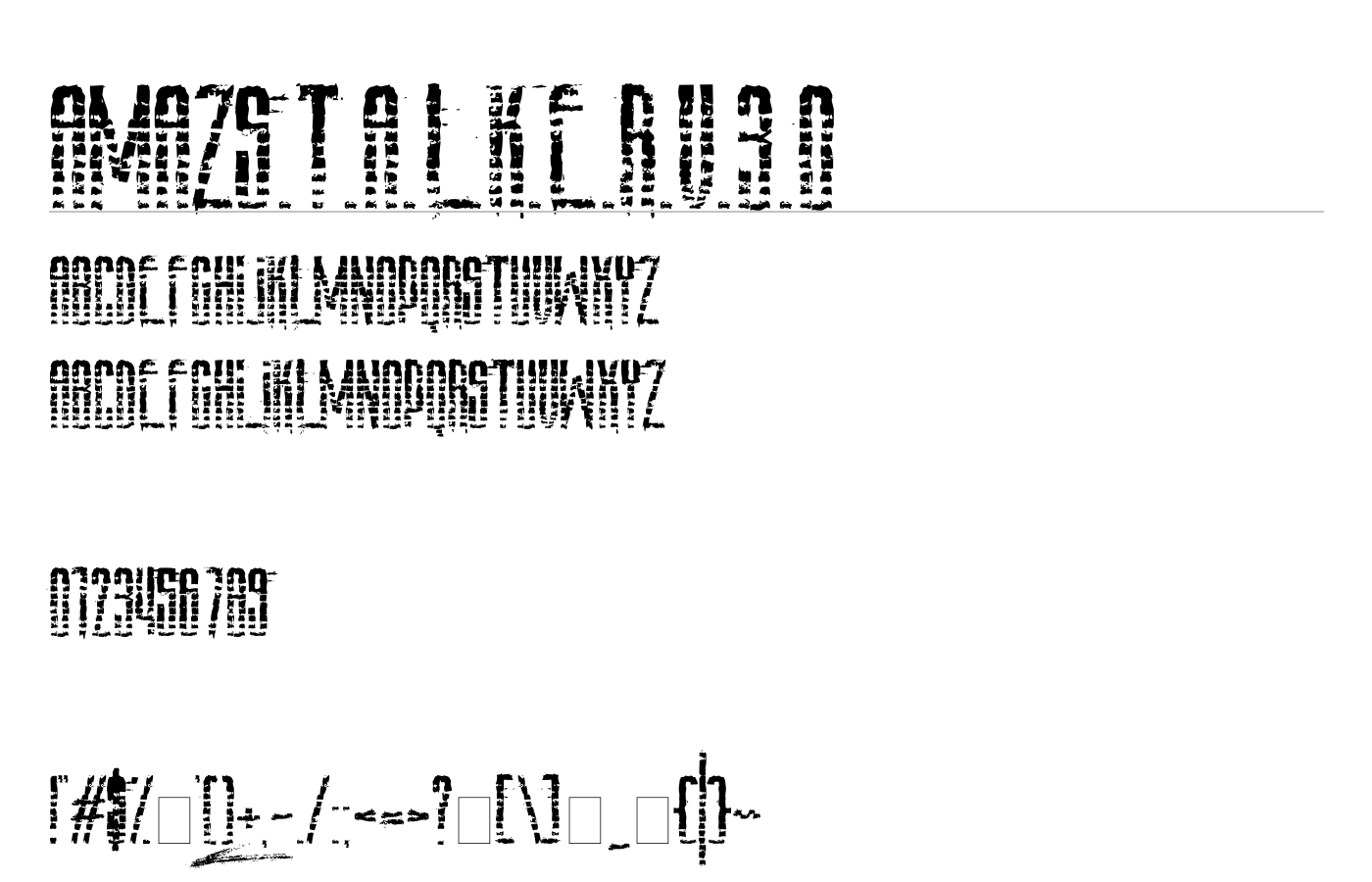
AmazS.T.A.L.K.E.R.v.3.0 is a tall, narrow stencil-style sans serif font with a distressed, worn texture that evokes a rugged, industrial feel. Its bold, condensed letterforms and high contrast between solid and broken strokes make it striking and impactful, perfect for designs needing a strong, edgy, and urban vibe. This font works best for posters, logos, and graphic projects where a gritty, adventurous mood is desired.
AmazS.T.A.L.K.E.R.v.3.0 Font
About AmazS.T.A.L.K.E.R.v.3.0 Font
| Font family | AmazS.T.A.L.K.E.R.v.3.0 Font |